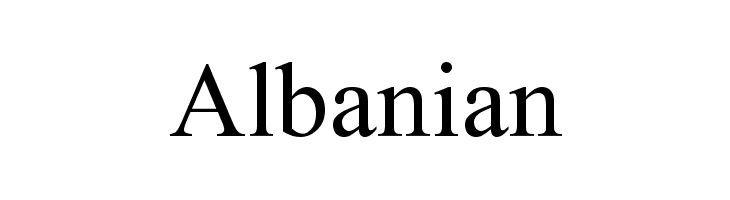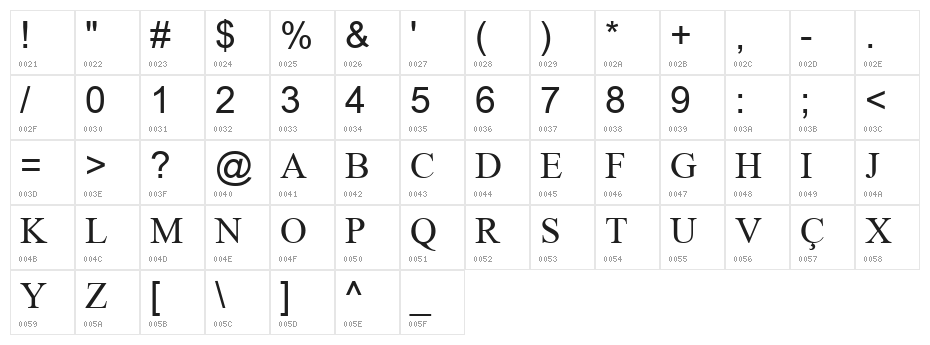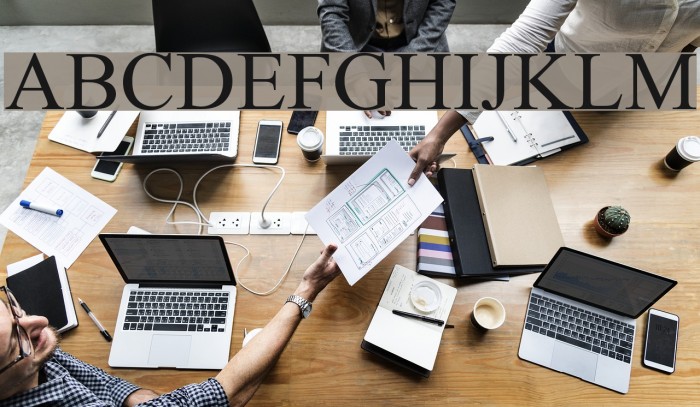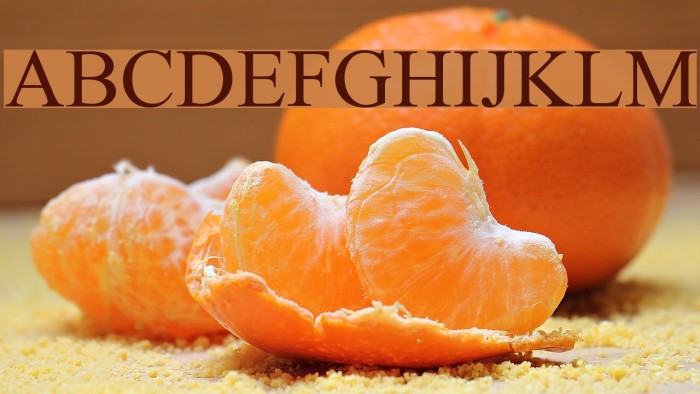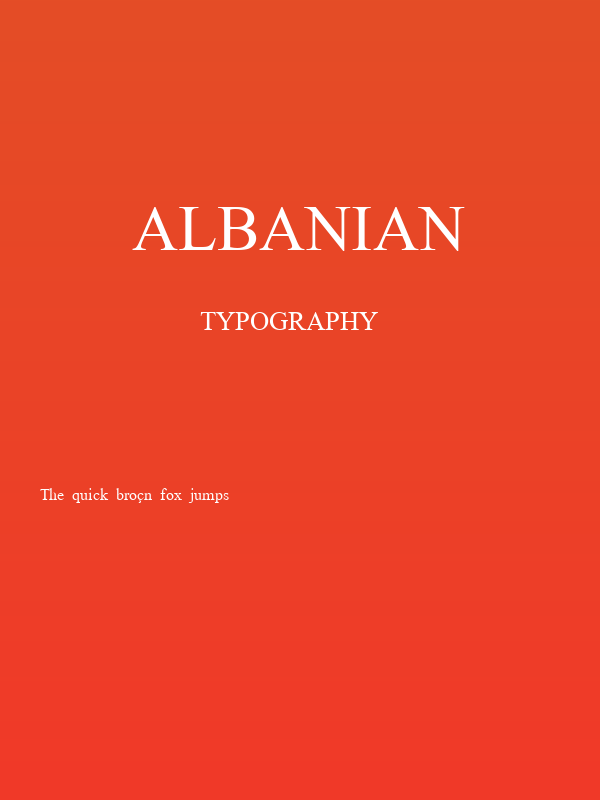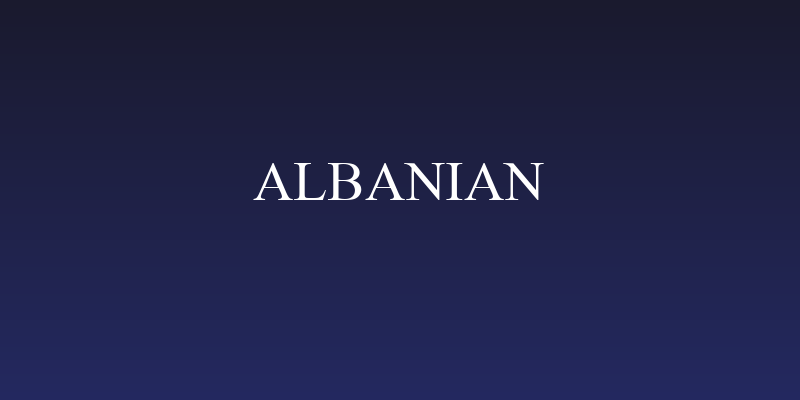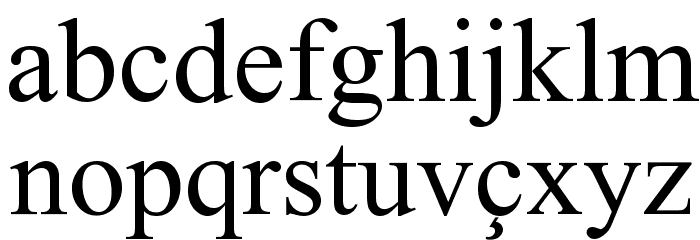
Albanian Font
Albanian Description
This font exhibits a classic serif style, characterized by its elegant and traditional letterforms. The serifs are pronounced and well-defined, adding a touch of sophistication and readability. The uppercase letters are bold and commanding, while the lowercase letters maintain a balanced and harmonious appearance. The numerals are clear and distinct, ensuring legibility. The special characters are crafted with precision, complementing the overall aesthetic. This font is versatile, suitable for both formal and creative applications, making it an excellent choice for a wide range of design projects.